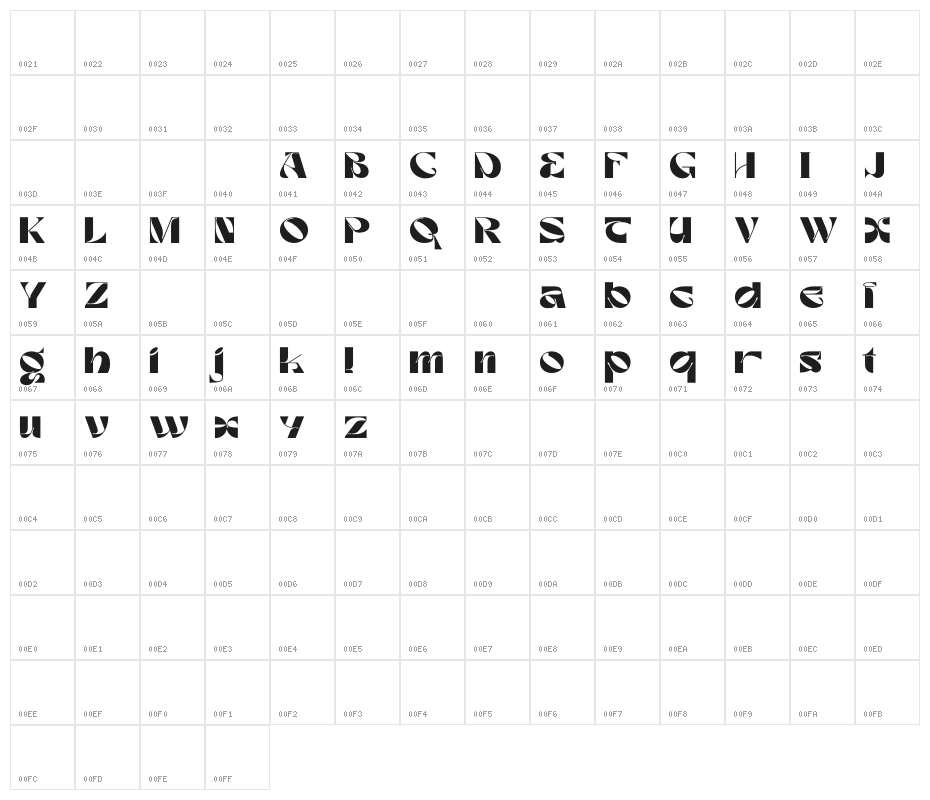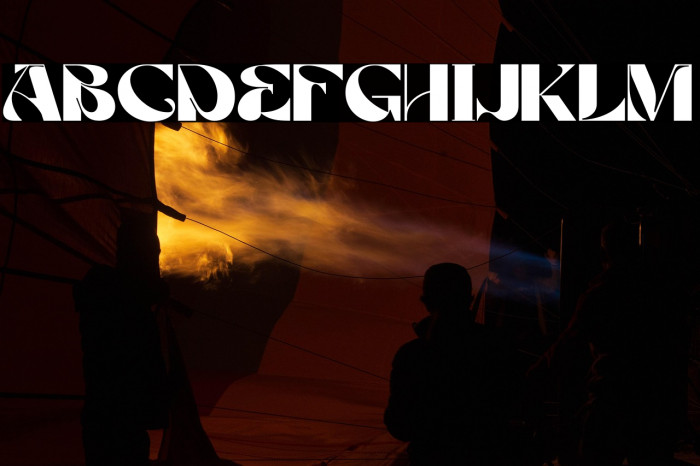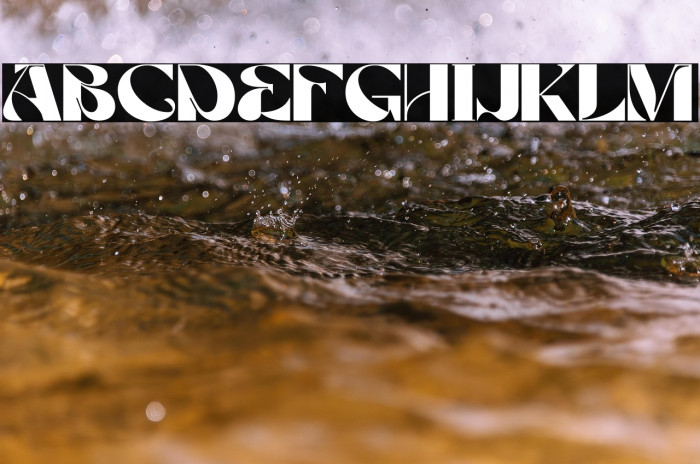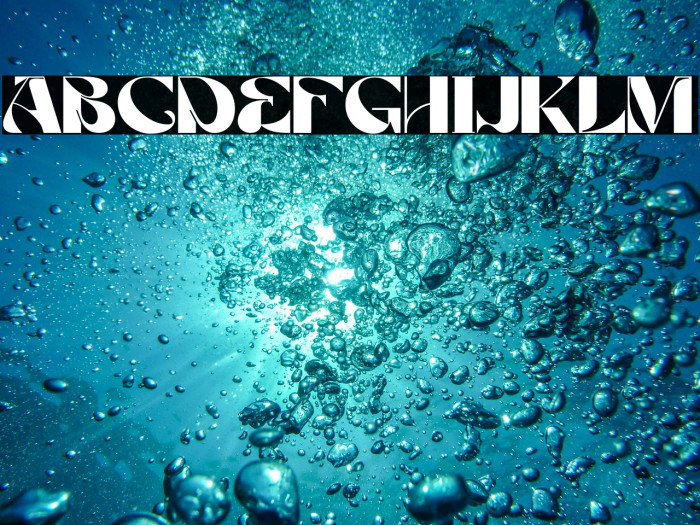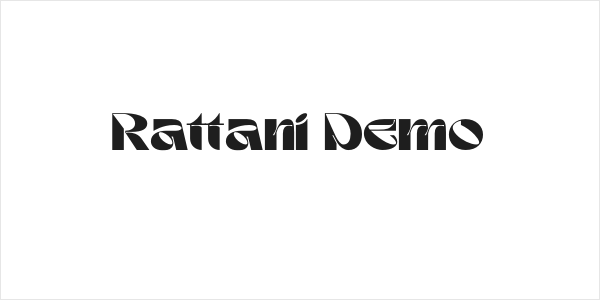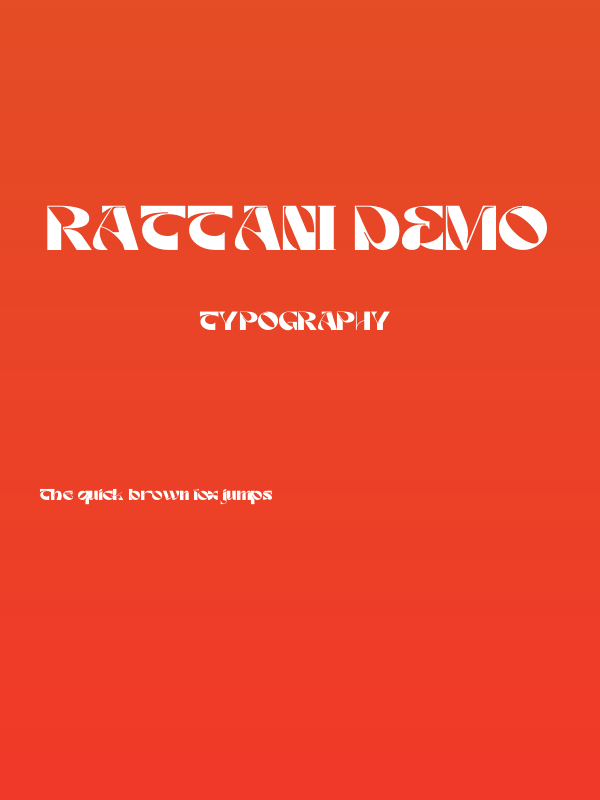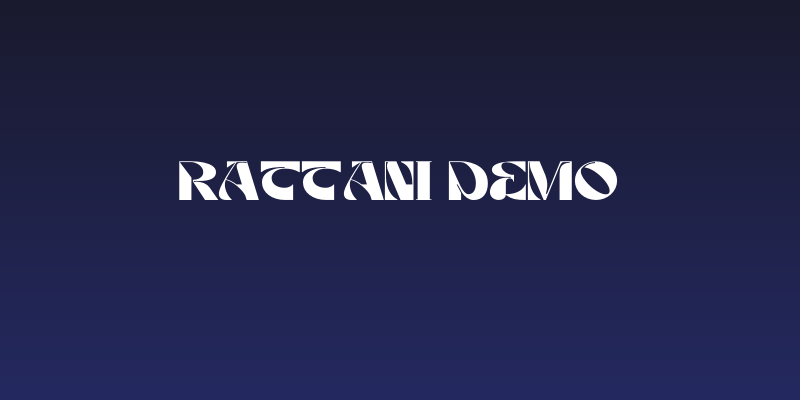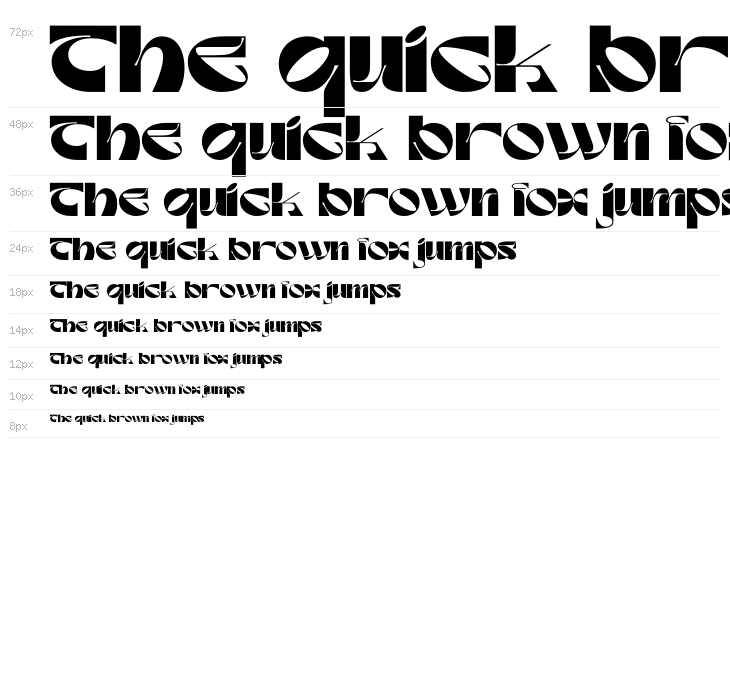
This font features a bold and striking design with a modern, geometric flair. The characters are crafted with sharp angles and clean lines, creating a sense of movement and energy. The uppercase letters are particularly distinctive, with unique cutouts and shapes that add a dynamic quality. The lowercase letters maintain the boldness while offering a slightly softer edge, making them versatile for various design applications. The numbers and special characters follow the same stylistic approach, ensuring consistency across all elements. This font is ideal for making a strong visual impact.
| Proposed Projects | Ideal for branding, posters, headlines, and any project requiring a modern, eye-catching typeface. |